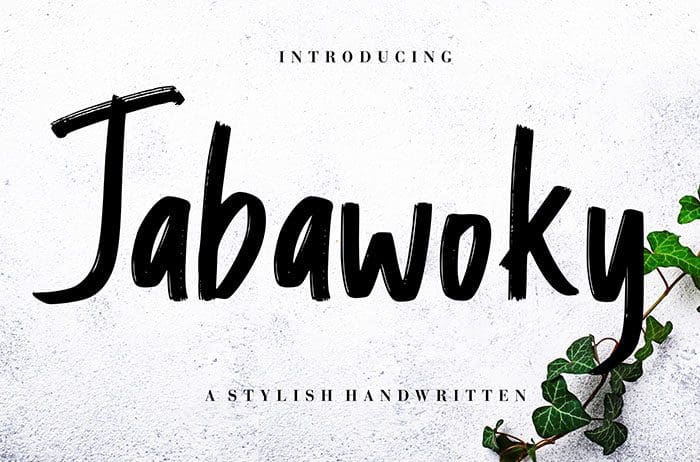
Jabawoky Brush Font
Jabawoky is a stylish Brush Font with natural scratch will make your latest project looks amazing. Jabawoky is perfect for branding projects, logo, photography, watermark, invitation, stationery and more. Thanks to Creatype Studio for sharing this font! Take a look at this portfolio for more of his stunning fonts.